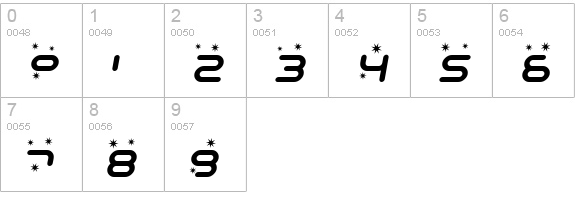
SF Technodelight Bold Italic Font Details
SF Technodelight Bold Italic is a strong, high-contrast, italic variant in the SF typeface family \xE2\x80\x94 well suited to headlines, attention-grabbing titles, and strong calls-to-action.
SF Technodelight Bold Italic is a futuristic and captivating font that is sure to catch the eye of any tech-savvy individual. This font exudes a sense of energy and excitement, making it perfect for projects that require a modern and cutting-edge look. The bold and italicized strokes add a touch of sophistication and uniqueness to any design. With its sleek and stylish appearance, SF Technodelight Bold Italic is ideal for a wide range of applications, from website headers to logos, posters to advertisements. It effortlessly combines technology and artistry, making it a versatile choice for both digital and print mediums. One of the best things about SF Technodelight Bold Italic is that it is completely free. Yes, you read that right! This font is freely available to download at FontsMarket.com. So whether you're a professional designer or a hobbyist, you can easily access this font and incorporate it into your projects without any additional cost. The high-quality and well-designed characters of SF Technodelight Bold Italic ensure that your text will always look sharp and visually appealing. Each letter has been carefully crafted to create a harmonious balance between legibility and aesthetics. This attention to detail makes this font a standout choice in the ever-expanding world of typography. So why wait? Download SF Technodelight Bold Italic now from FontsMarket.com and unleash the power of this captivating font in your designs. Whether you're working on a futuristic website, a sci-fi movie poster, or a technology-themed logo, this font will undoubtedly add a touch of modernity and excitement to your project. Don't miss out on this opportunity to enhance your design work with a free and exceptional font like SF Technodelight Bold Italic.